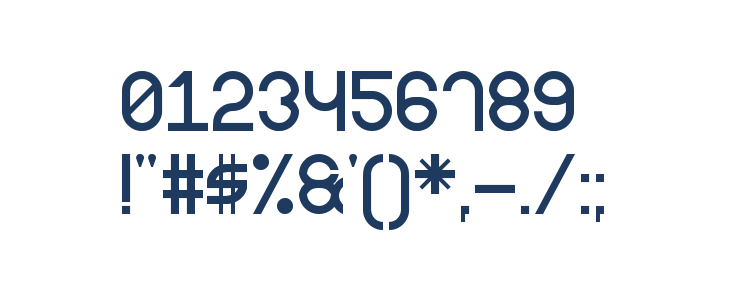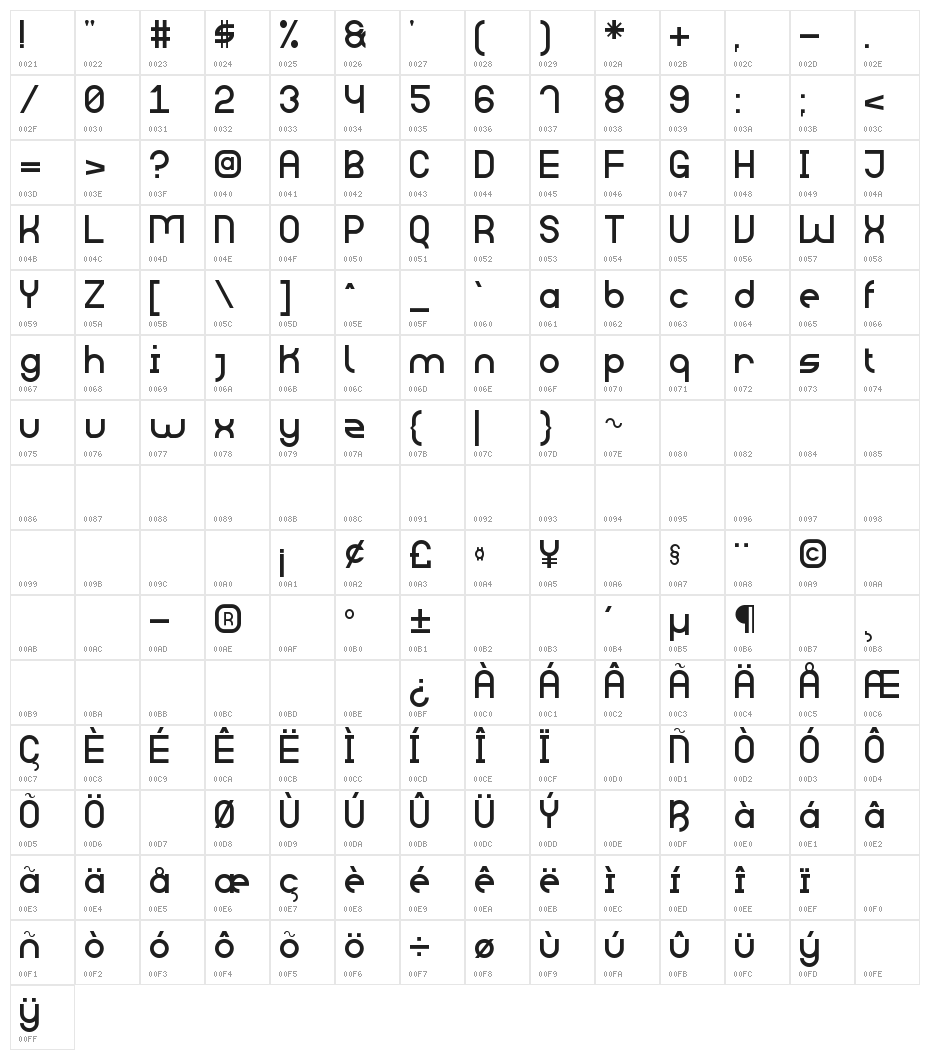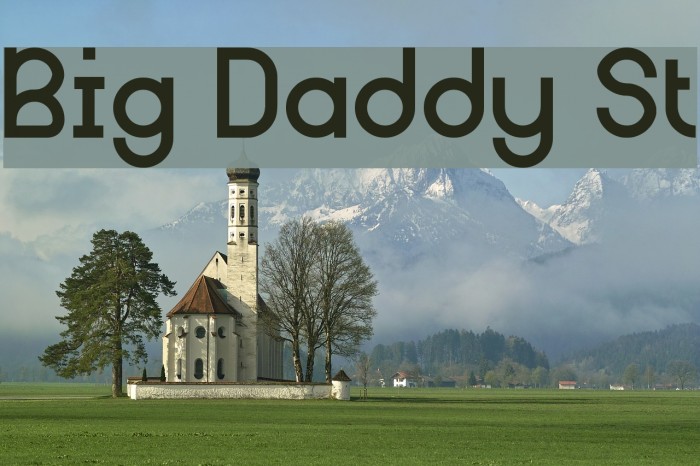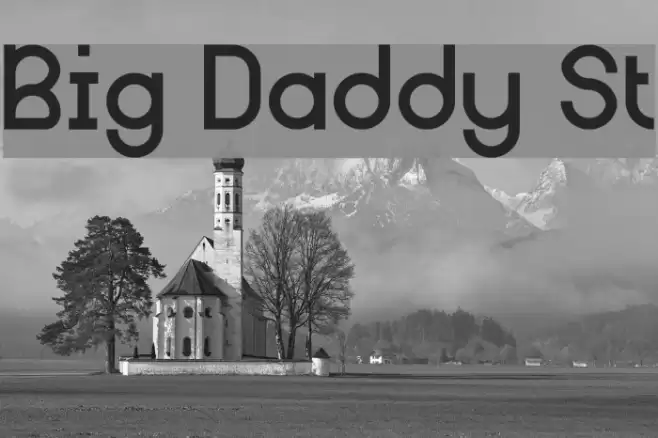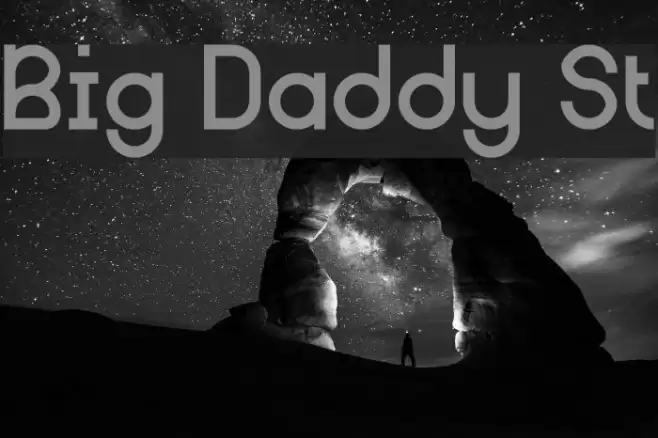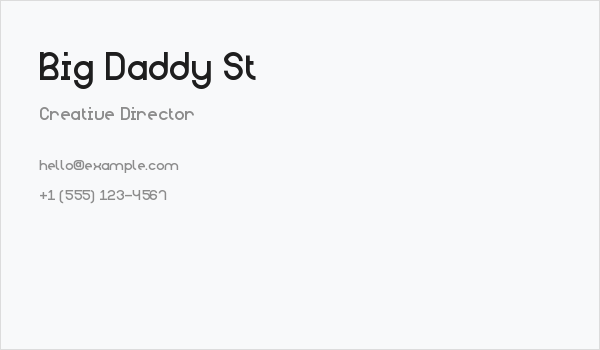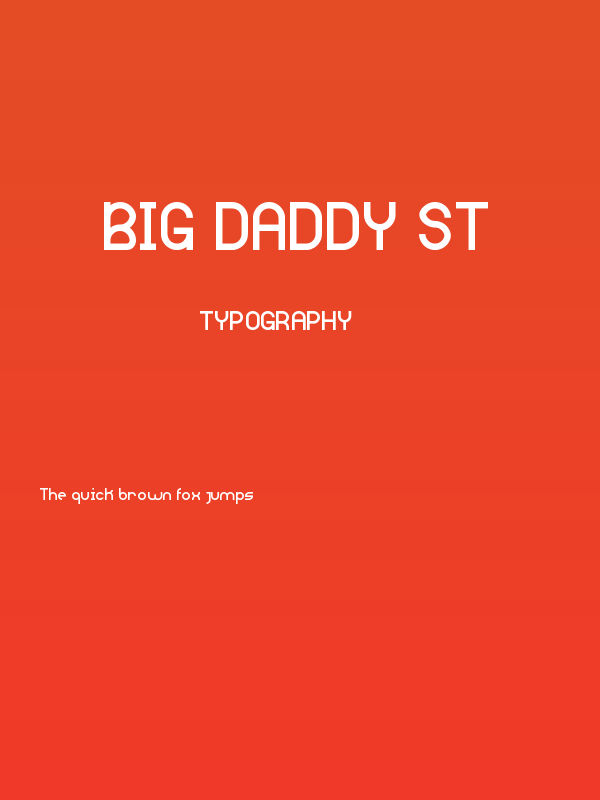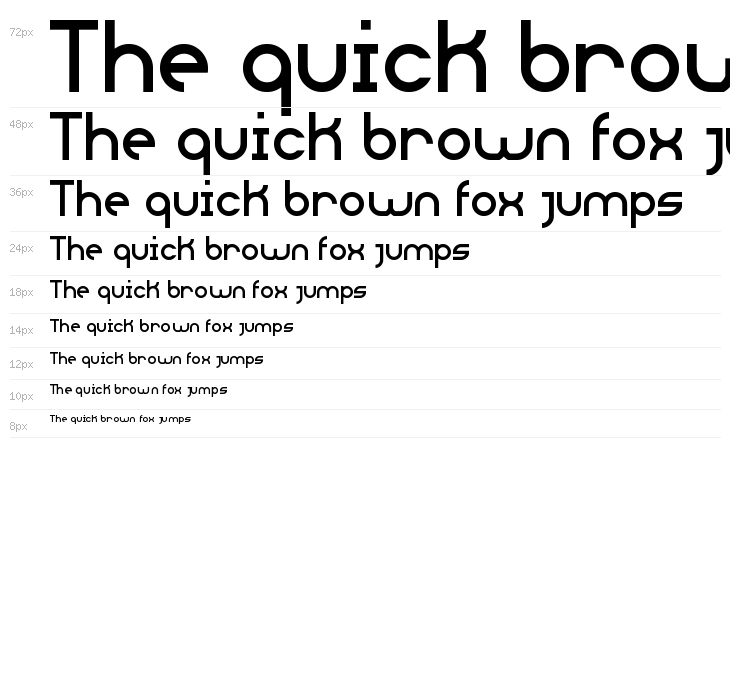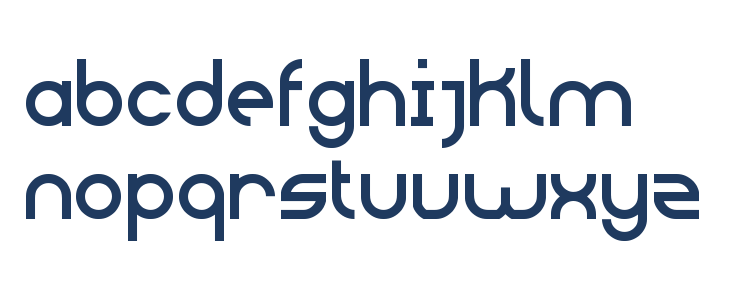
Big Daddy St Font
Big Daddy St Description
This font features a bold and modern design with a geometric structure. The characters are rounded and have a consistent stroke width, giving it a clean and contemporary appearance. The uppercase letters are tall and slightly condensed, while the lowercase letters maintain a similar width, creating a harmonious balance. The numerals are clear and legible, matching the overall style of the alphabet. Special characters are well-integrated, maintaining the geometric and modern aesthetic. This font is versatile and suitable for various design projects that require a bold and modern touch.